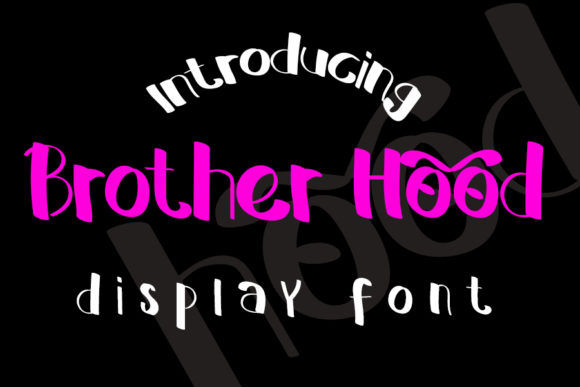
The Brother Hood Font: A Sweet and Whimsical Design Companion
Brother Hood is a sweet and whimsical display font that’s perfect for a variety of creative projects, from crafting and digital designing to presentations and greeting cards making. In this article, we’ll dive into the world of Brother Hood, exploring its features, uses, and some helpful tips and tricks for getting the most out of this beautiful font.
An Honest Review of Brother Hood Font
What I Love About Brother Hood ✨
- Its playful and whimsical feel makes it perfect for creative projects that need a touch of personality ✅
- The font is highly legible, even at smaller sizes, making it versatile for a range of applications 📚
- The font comes with a range of OpenType features, including glyphs and stylistic alternates, giving you plenty of creative options to experiment with 🎨
- As a display font, Brother Hood can be a bit over-the-top for body text or longer blocks of content ⚠️
- Some users may find the font’s playful feel too informal for certain projects or clients 🤔
The Backstory of Brother Hood Font
Brother Hood font was designed with the intention of creating a friendly and approachable typeface that would bring joy to users. The designer aimed to craft a font that was both elegant and whimsical, perfect for creative projects that need a touch of personality. While the exact details of the design process are unclear, it’s evident that Brother Hood was created with the user in mind, providing a versatile and easy-to-use font for a range of applications.
| Font Name | Brother Hood Font |
| Author | Eddygoodboy |
Q: What type of projects is Brother Hood font best suited for?
A: Brother Hood font is perfect for creative projects that need a touch of personality, such as crafting, digital designing, presentations, and greeting cards making.
Q: Is Brother Hood font easy to read?
A: Yes, Brother Hood font is highly legible, even at smaller sizes, making it versatile for a range of applications.